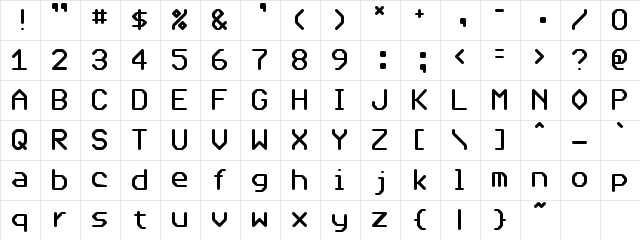
UHF Regular
Design Context for UHF Typeface
UHF is a composed and adaptable typeface that performs quietly and consistently across a wide range of design contexts.